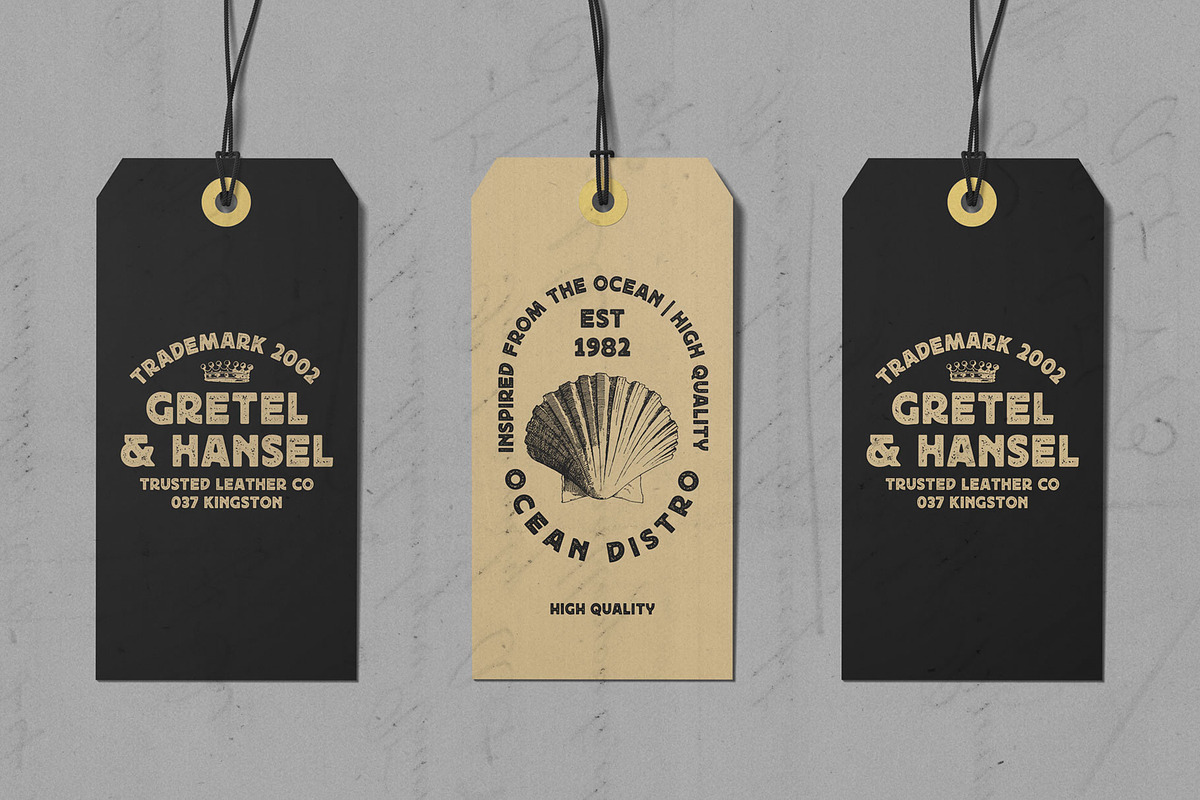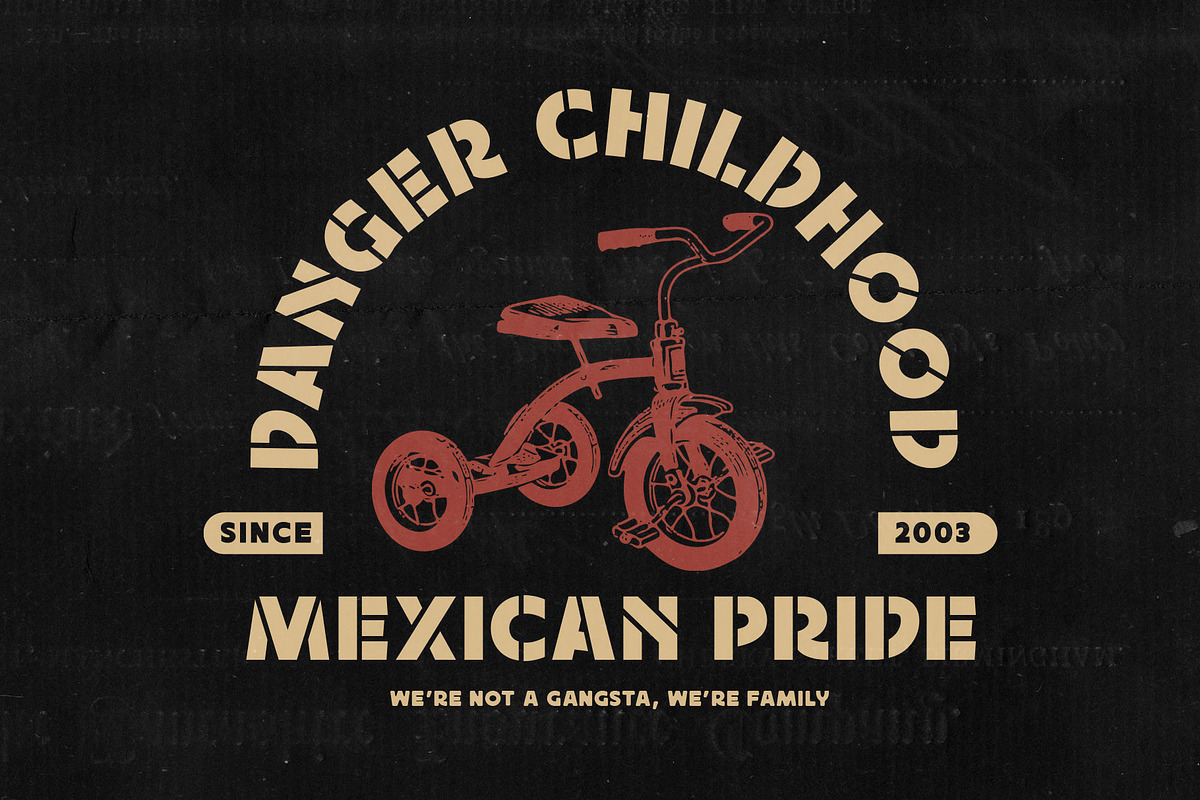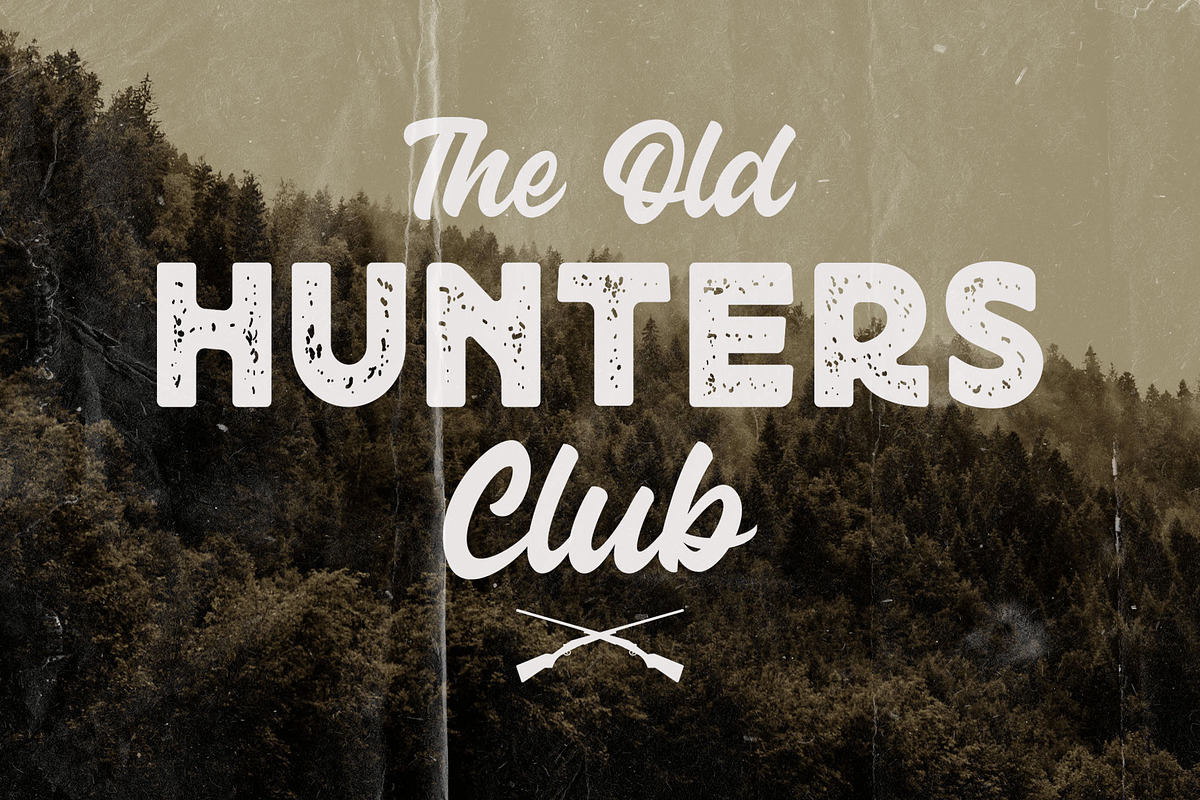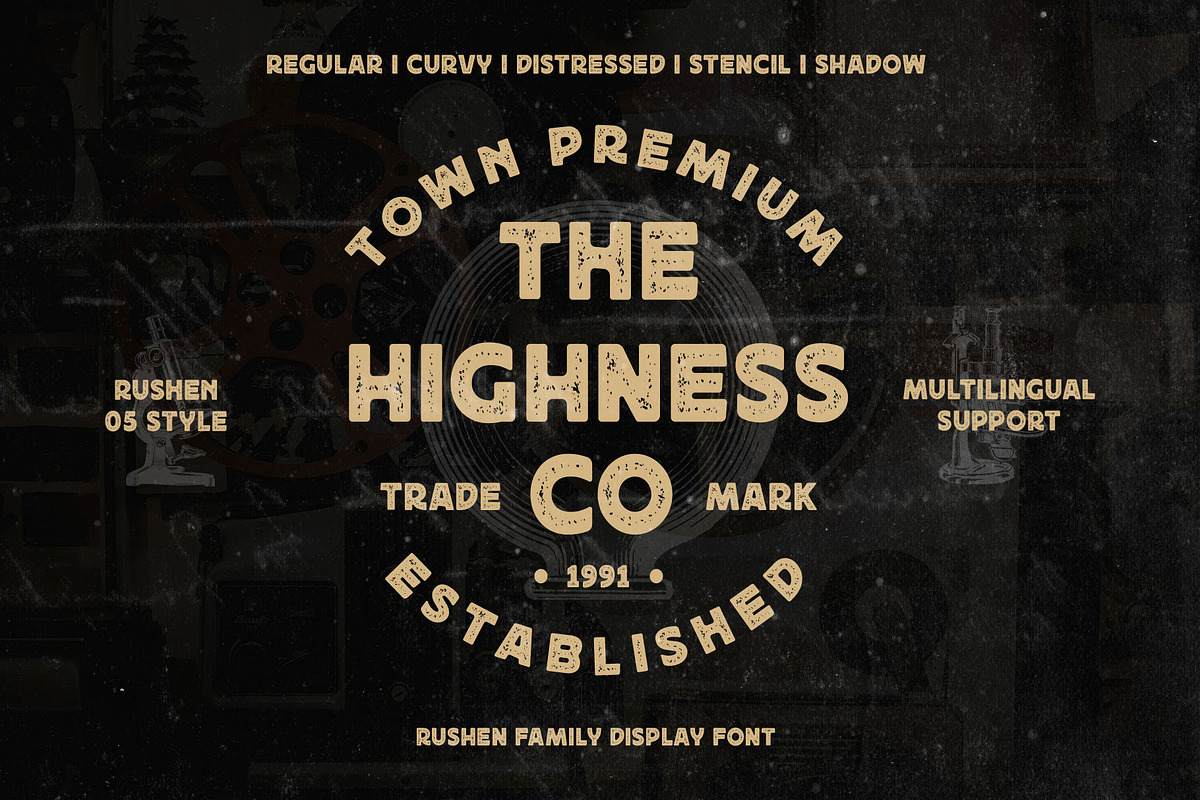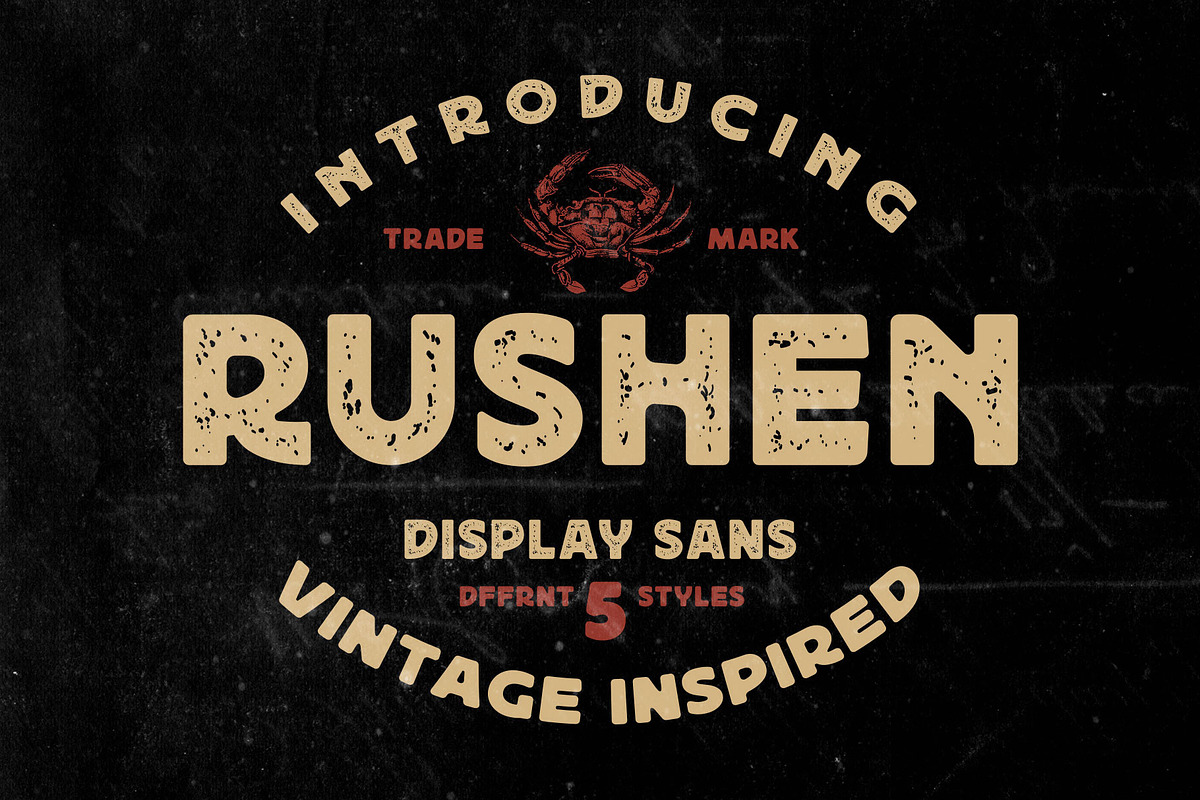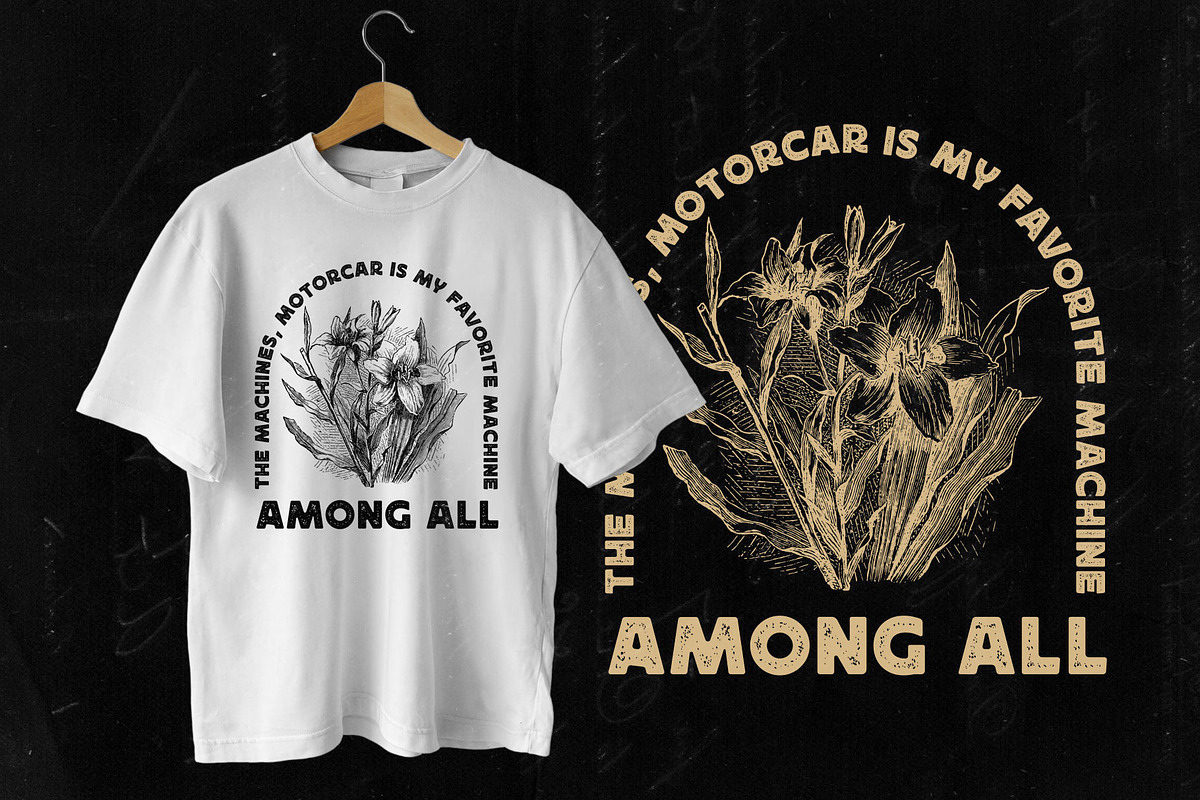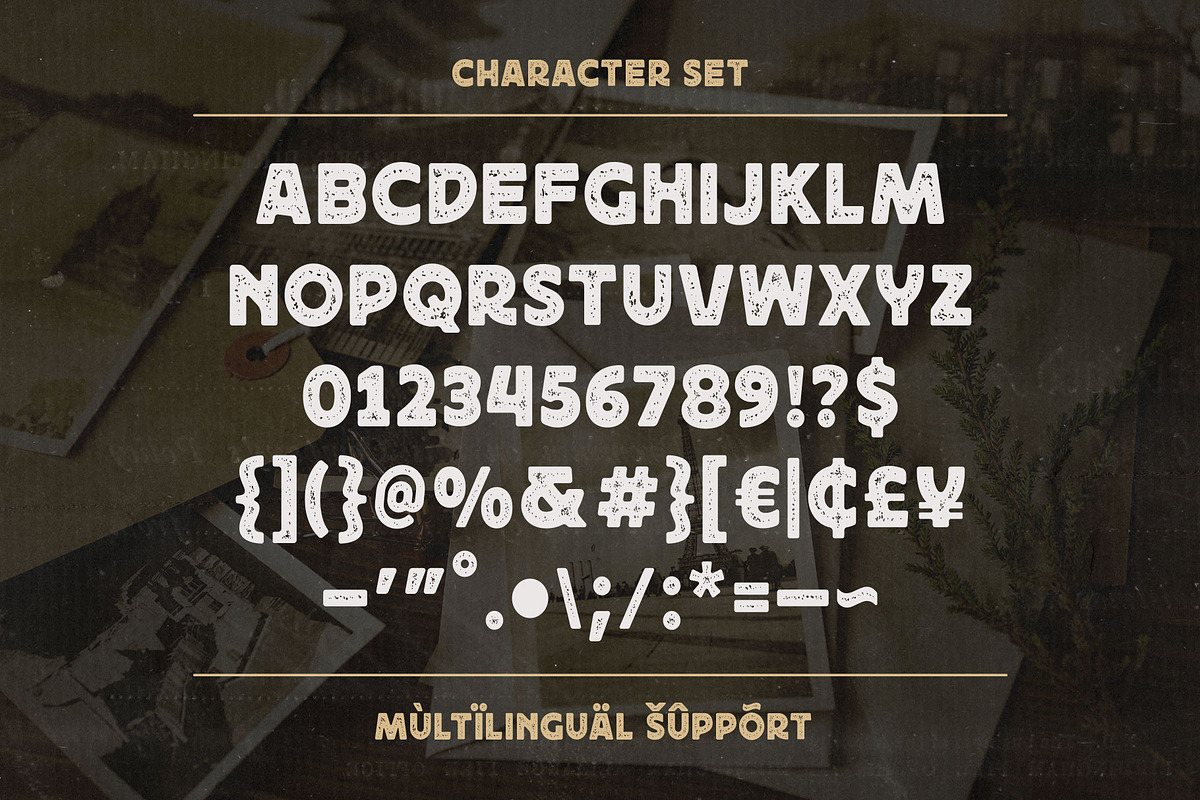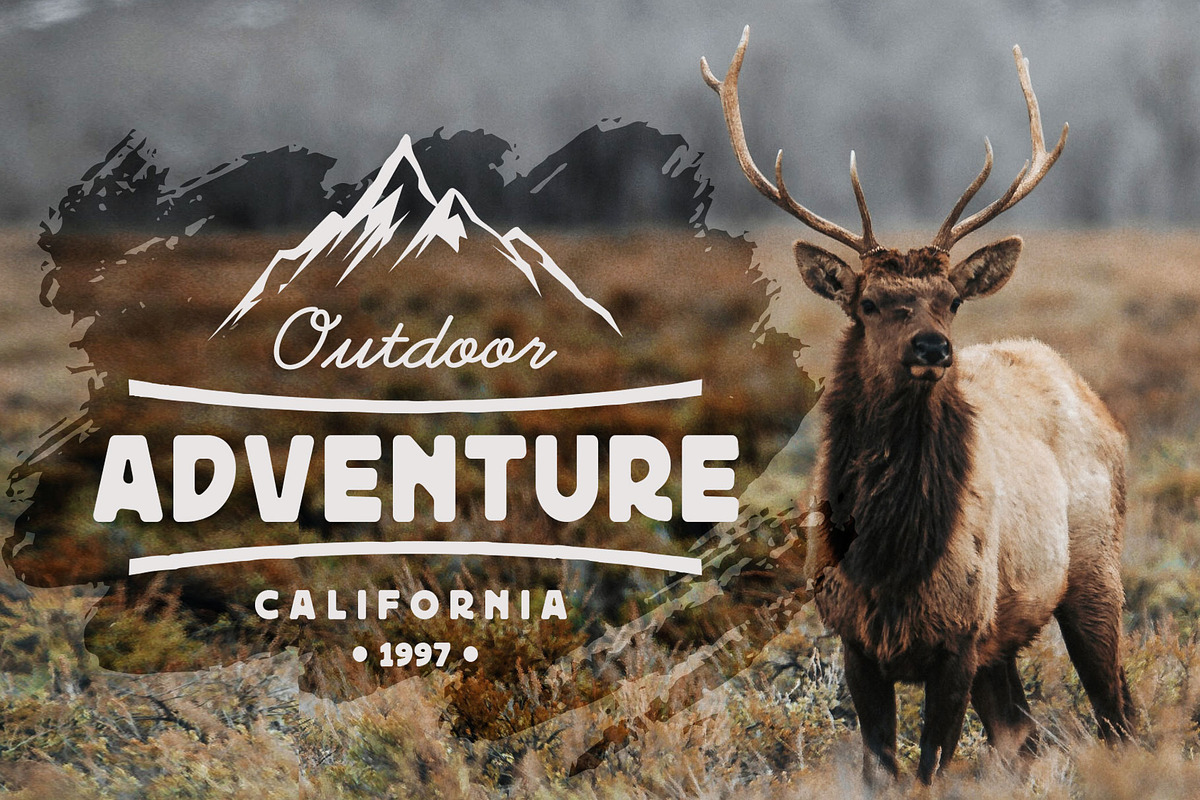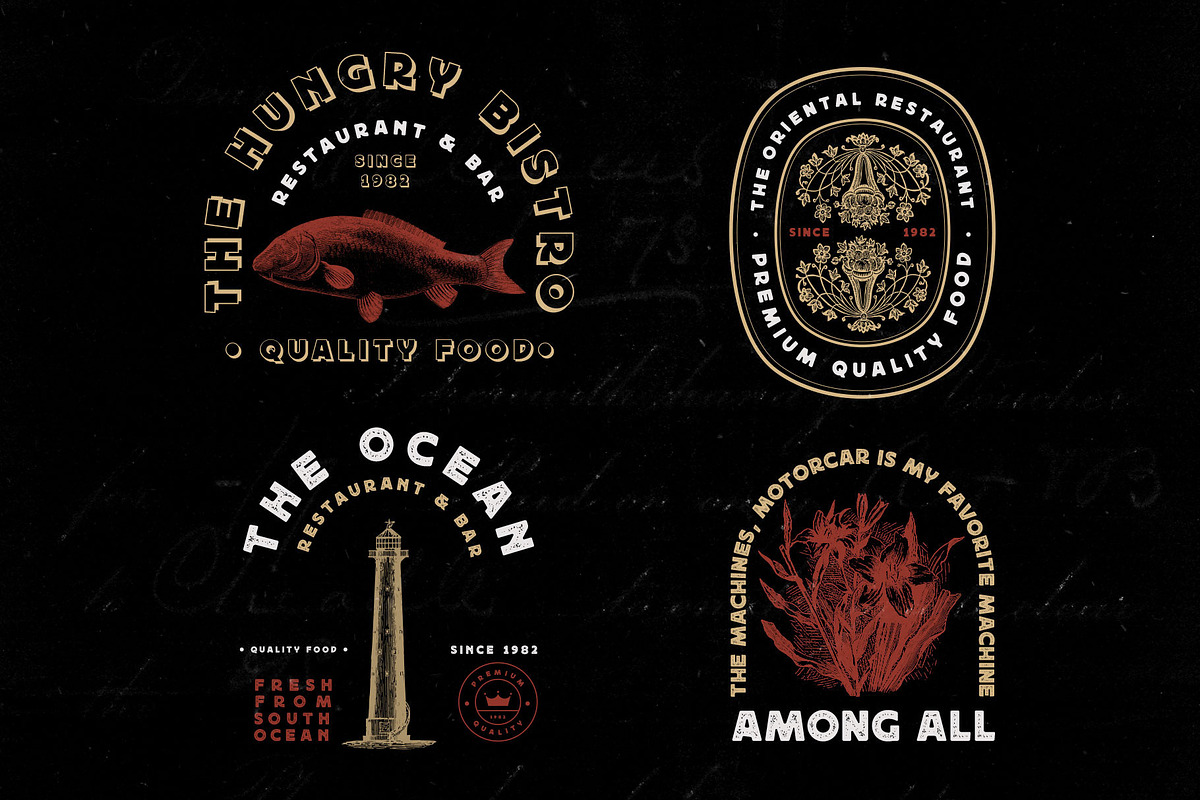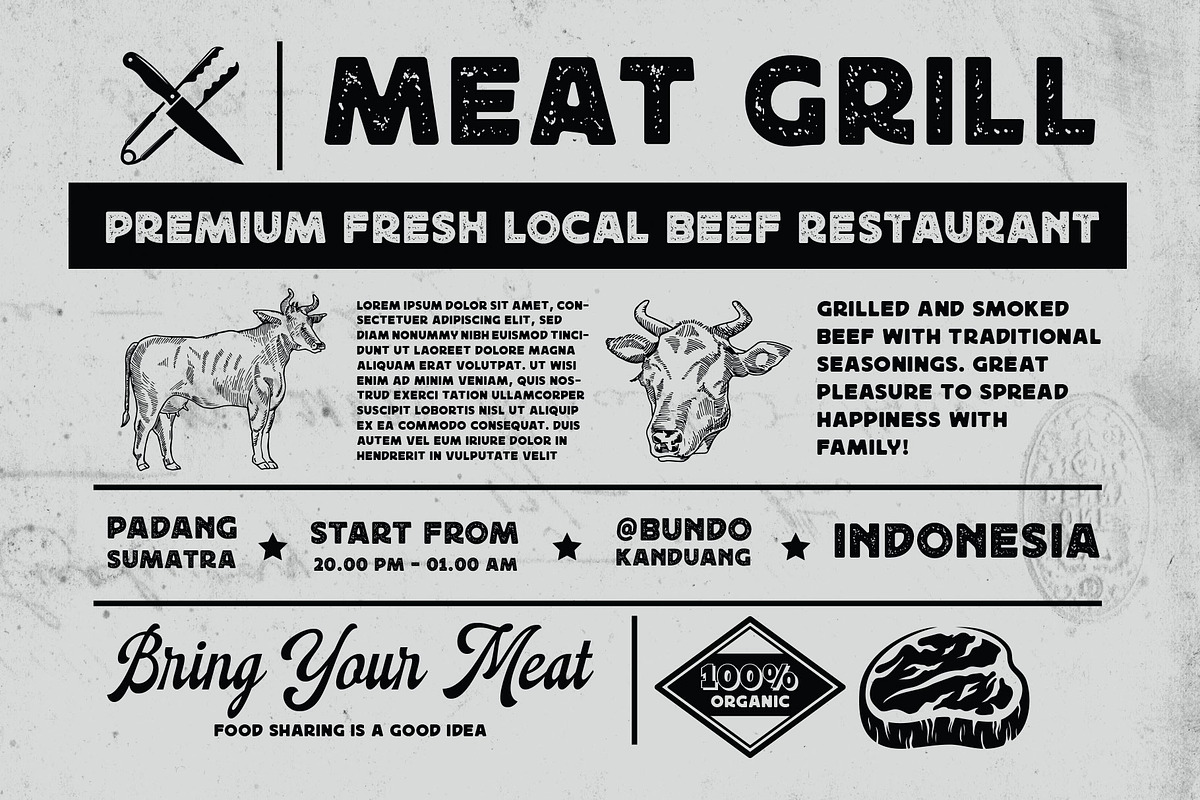
Rushen - Vintage Inspired
Presenting to you Rushen. A vintage display sans serif with 5 styles. Designed with a bold weight that is awesome to be used for many purposes such as headline, branding, logo, apparel, logotype, cards, labels, poster, packaging, and many more. These fonts are all-caps fonts complete with multilingual support. Be Bold with Rushen!
- Regular: The basic one, with sharp geometrical shapes, formal and elegant look. Good to apply in Books, newspapers, letterhead.
- Curvy: Inky inspired from the old-school advertising, can be combined with your favorite fonts. Perfect for labels, posters, and short editorial.
- Stencil: The most explored with some adjustments that look good for a manly theme, urban style, military themes, brave, and youth.
- Shadow: The complement from all, but still can be stand-alone for western design, old school, and food themes.
- Distressed: The vintage-inspired with the neat ink effect and minimal anchor points to keep font still ergonomic.